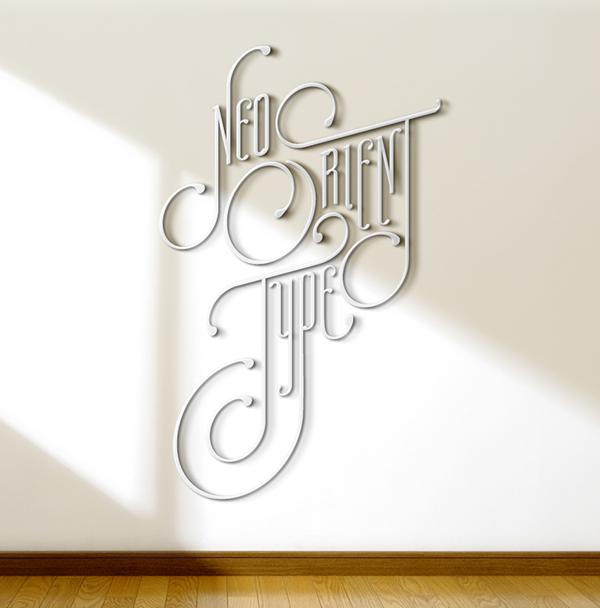
Neo Orient Typeface
Introducing “Neo Orient” a powerful condensed display font . Neo Orient best uses for sport, branding, poster, logos, header, apparel design and many more.
| Designer Name: | 177BC |